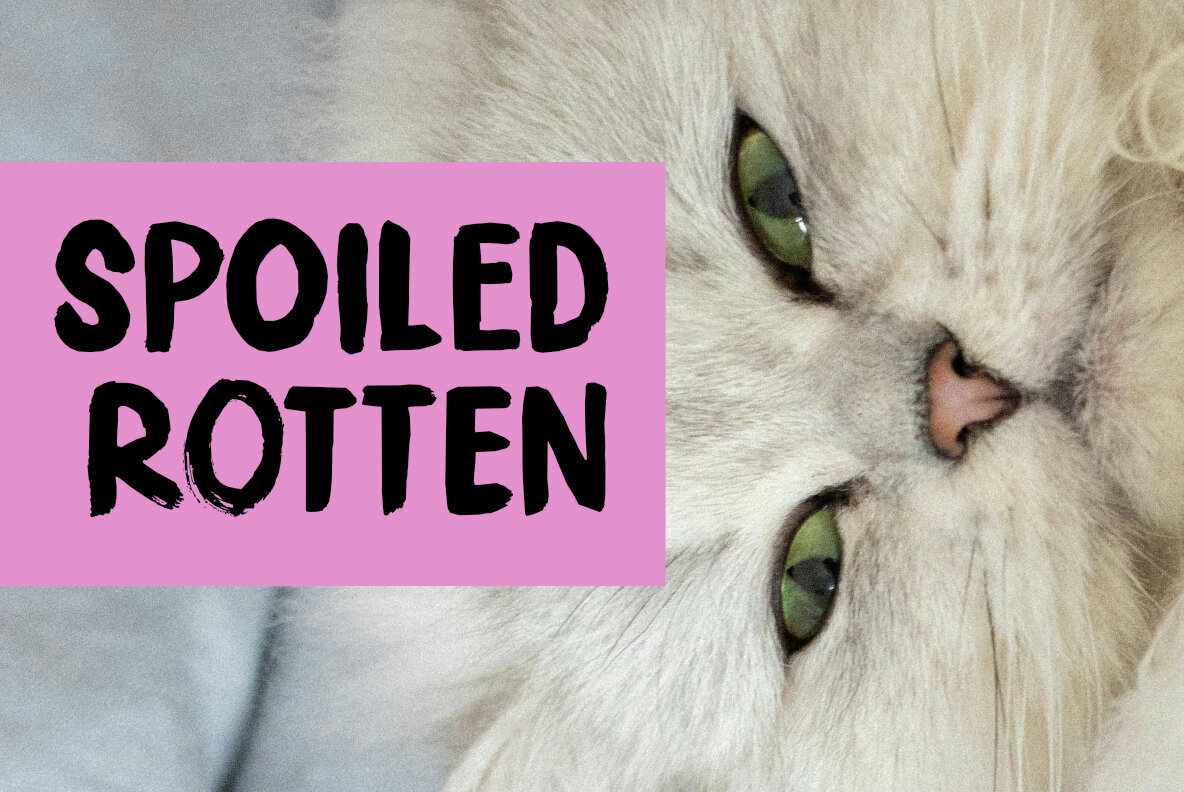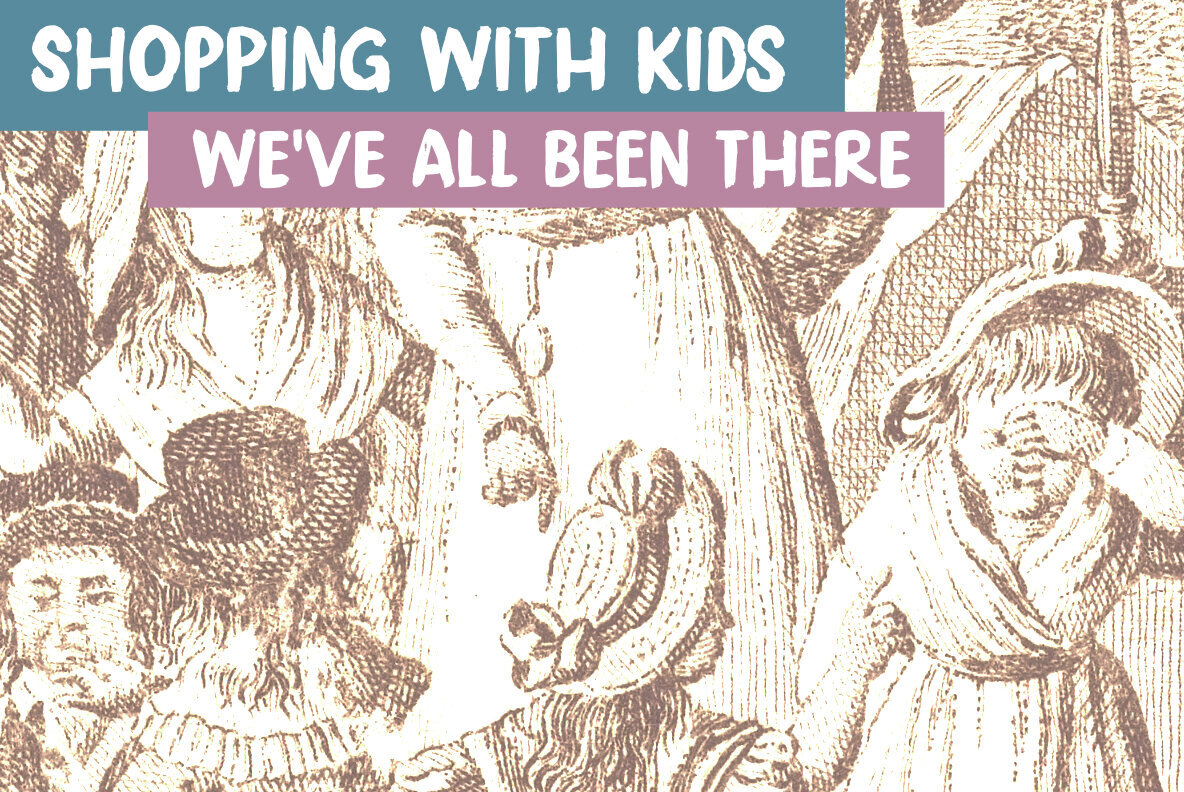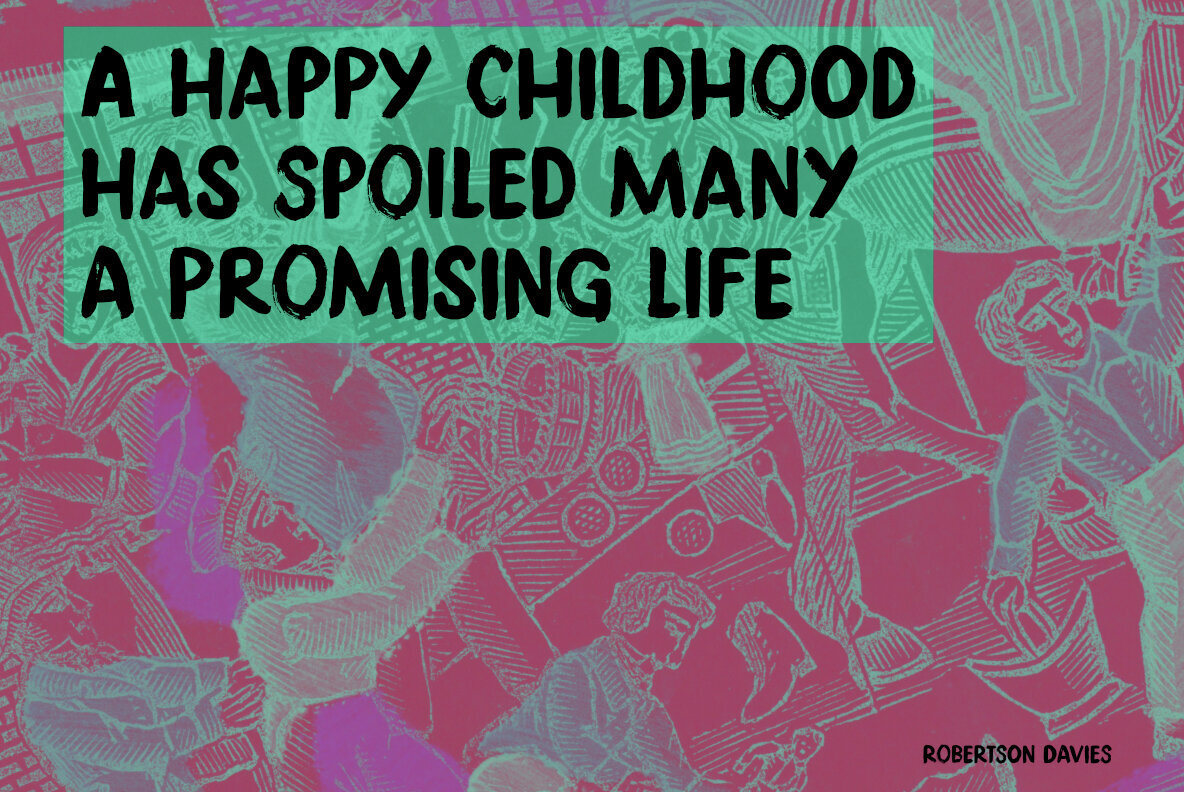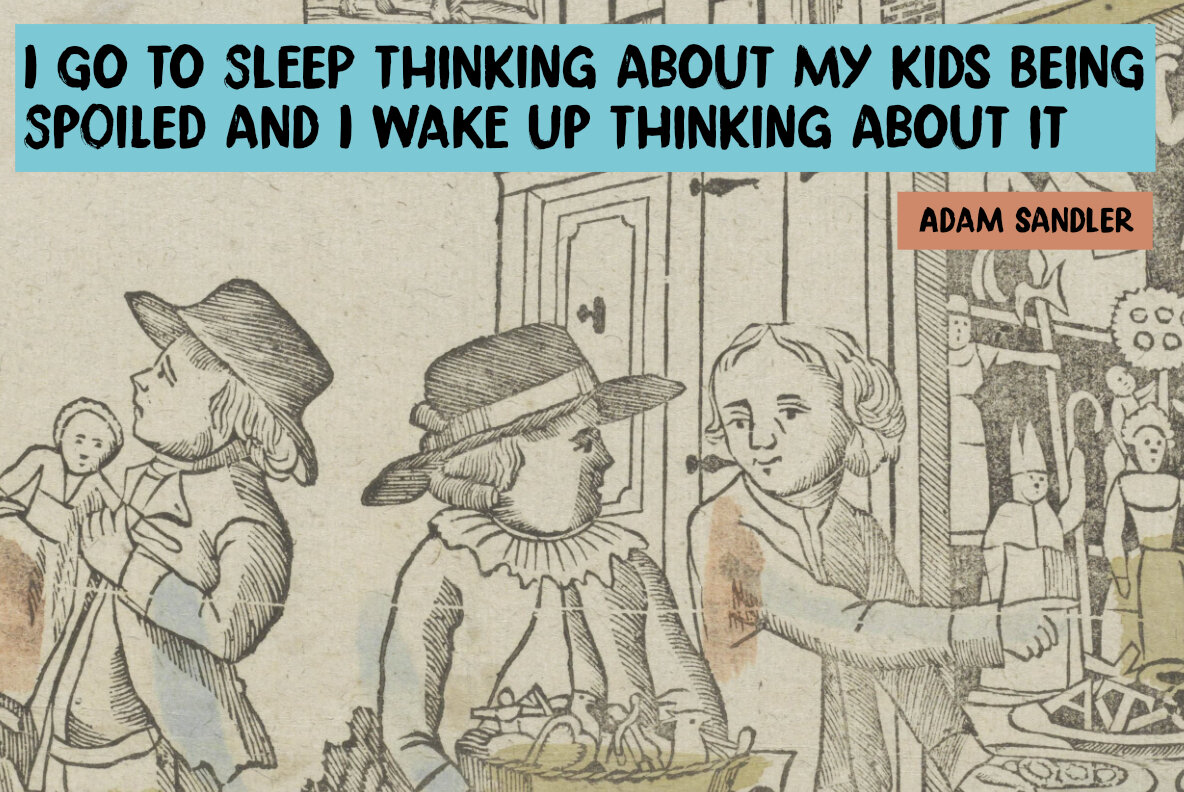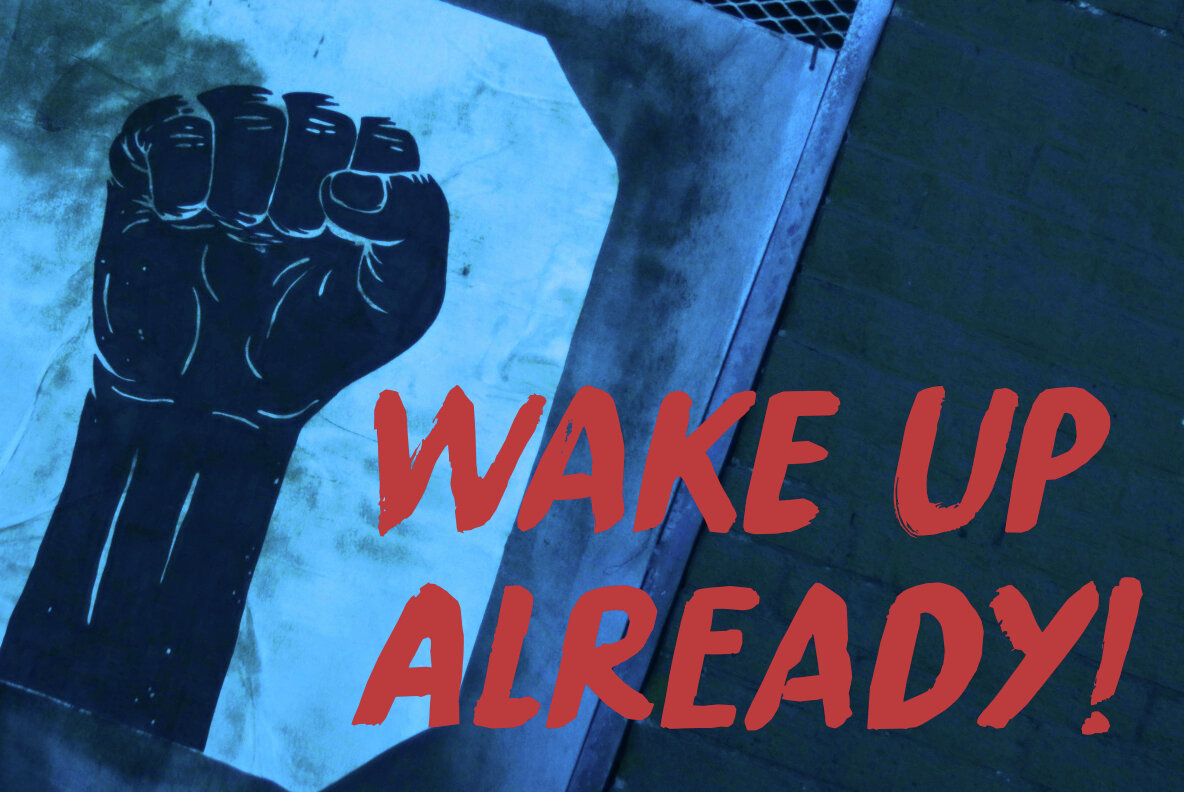
Spoiled Rotten Font
Drawing inspiration from the occasional public spectacle, Spoiled Rotten is a font designed to make a bold statement. Created with ink and a brush, it exudes a raw, dynamic energy that's perfect for a wide range of creative projects. Its rough yet captivating style makes it ideal for book covers, ensuring they stand out on the shelves. Looking for standout packaging design? Spoiled Rotten delivers impact. Need attention-grabbing public posters? Consider it done. This font doesn't just make noise; it ensures you'll be noticed.Spoiled Rotten Typeface